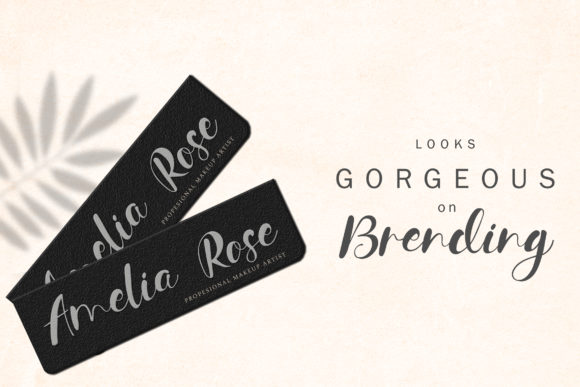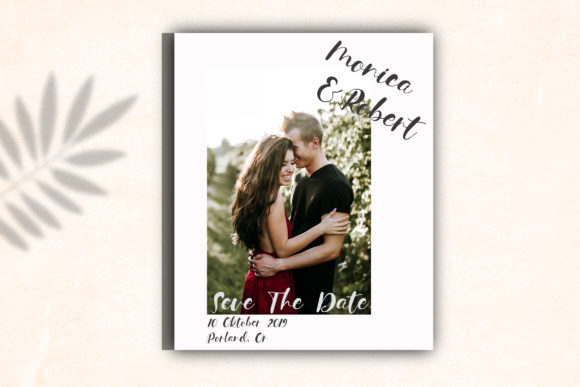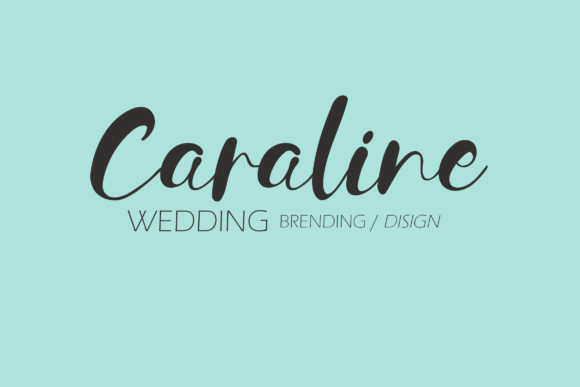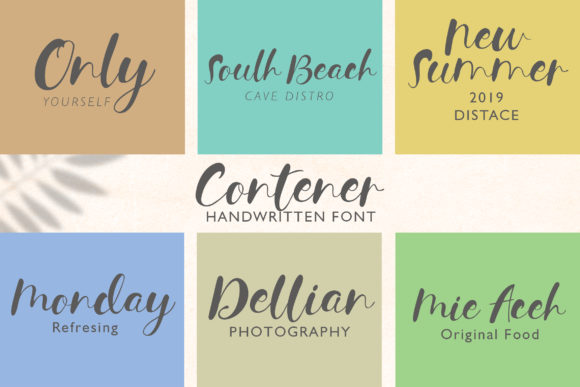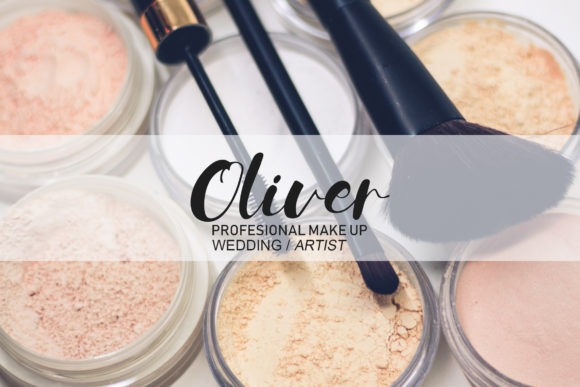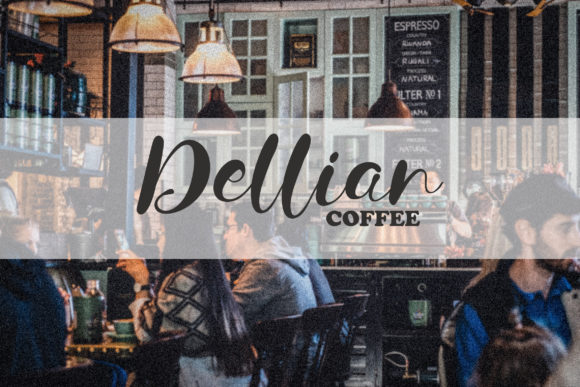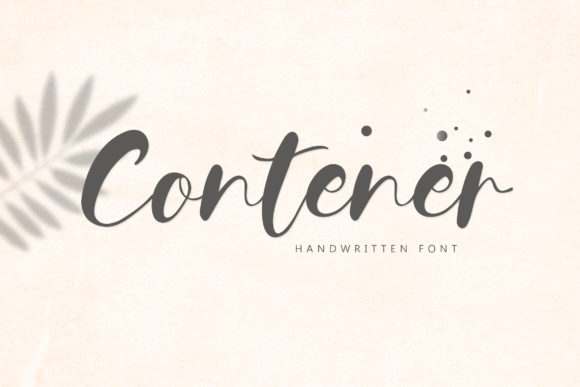
Introducing Contener Font: Adding a Bold Twist to Your Designs
Are you tired of using the same old fonts in your design projects? Look no further than Contener Font, a unique handwritten font with a bold twist that’s sure to add an authentic spark to any design. In this article, we’ll dive into the world of Contener Font and explore its features, benefits, and uses, making it a must-read for designers and crafters alike.
What is Contener Font?
Contener Font is a one-of-a-kind handwritten font that’s been carefully crafted to bring a touch of personality to your designs. With its bold and expressive letters, Contener Font is perfect for making a statement in any design project. Whether you’re working on a logo, branding materials, or marketing collateral, Contener Font is sure to grab attention and leave a lasting impression.
Key Features of Contener Font
- Unique Handwritten Style: Contener Font boasts a distinctive handwritten style that’s both elegant and playful.
- Bold Twist: What sets Contener Font apart is its bold twist, which adds a level of sophistication and edge to your designs.
- Highly Versatile: Contener Font can be used in a wide range of design projects, from digital graphics to print materials.
- Easily Readable: Despite its bold and expressive nature, Contener Font remains highly readable, making it perfect for body text and headlines.
Benefits of Using Contener Font
So, why should you choose Contener Font for your design projects? Here are just a few benefits of using this amazing font:
- Adds Personality to Your Designs: Contener Font’s unique style allows you to add a touch of personality to your designs, setting them apart from the crowd.
- Enhances Brand Identity: With Contener Font, you can create a bold and memorable brand identity that resonates with your target audience.
- Perfect for Creative Projects: Whether you’re working on a DIY craft project or a professional design brief, Contener Font is the perfect choice for adding a creative touch.
Using Contener Font in Your Designs
So, how can you use Contener Font in your designs? Here are a few ideas to get you started:
- Logos and Branding: Use Contener Font to create a bold and memorable logo that showcases your brand’s personality.
- Social Media Graphics: Add a touch of personality to your social media graphics with Contener Font, making them stand out in a crowded feed.
- Marketing Collateral: Use Contener Font in your marketing materials, such as brochures, flyers, and posters, to add a level of sophistication and edge.
- Crafting and DIY Projects: Contener Font is perfect for adding a personal touch to your crafting and DIY projects, such as handmade cards, gift tags, and scrapbooking.
Tips and Tricks for Working with Contener Font
To get the most out of Contener Font, here are a few tips and tricks to keep in mind:
- Experiment with Colors: Contener Font looks great in a range of colors, so don’t be afraid to experiment and find the perfect hue for your design.
- Mix and Match Fonts: Combine Contener Font with other fonts to create a unique and visually appealing typography style.
- Pay Attention to Kerning: Make sure to adjust the kerning of Contener Font to ensure that your text looks balanced and visually appealing.
In conclusion, Contener Font is a unique and versatile font that’s perfect for adding a bold twist to your design projects. With its highly readable and elegant style, Contener Font is sure to become a go-to font in your design arsenal. So why wait? Download Contener Font today and start adding an authentic spark to your designs!